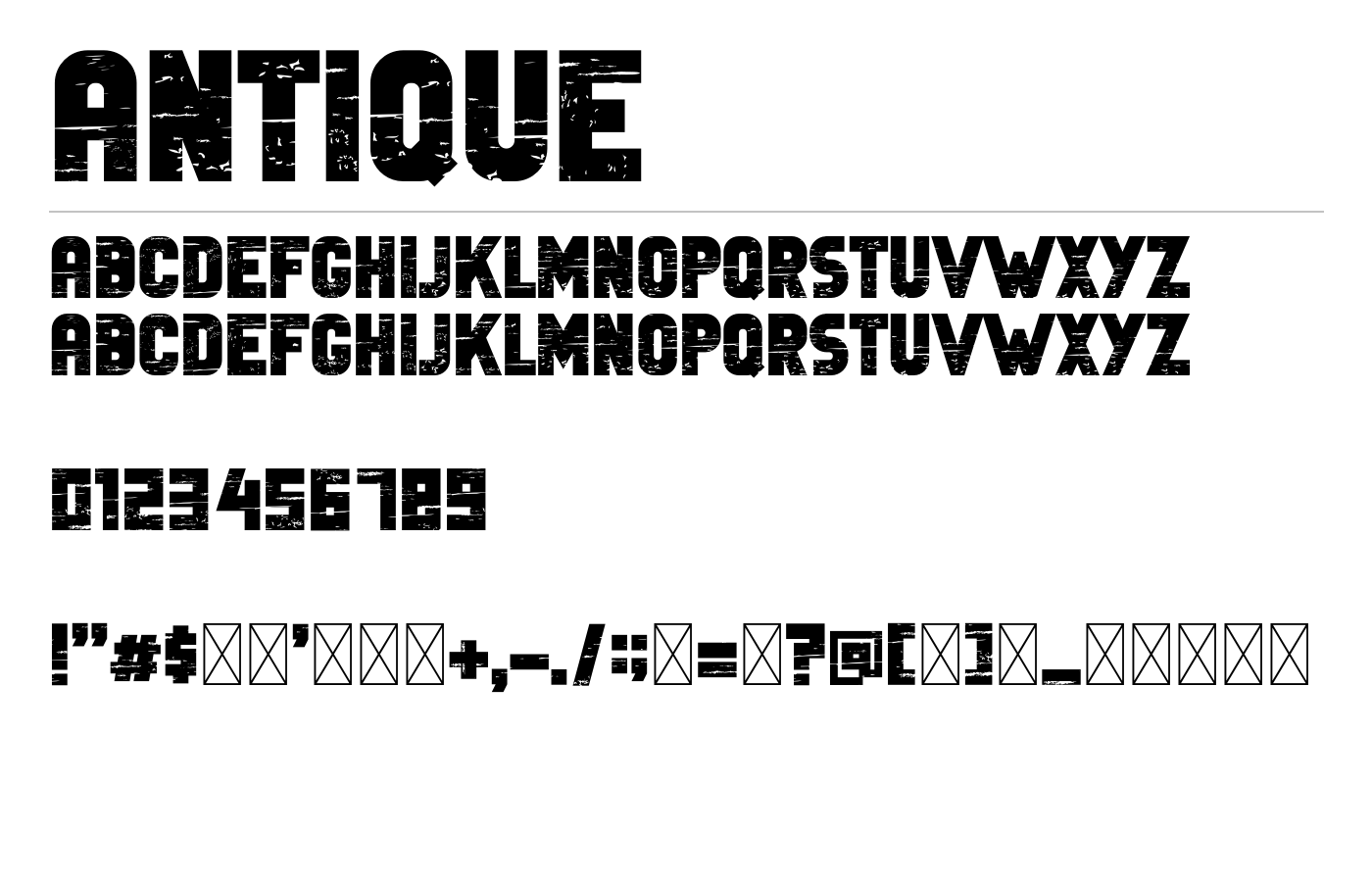
Antique Font is a bold, condensed sans serif with a distressed, worn texture that gives it a vintage, rugged feel. Its strong, blocky letterforms and high contrast between solid areas and rough patches make it ideal for eye-catching headlines, posters, and branding that seeks to evoke a sense of history or industrial toughness. This font works well for designs that want to communicate strength and authenticity with a nostalgic edge.
Antique Font
About Antique Font